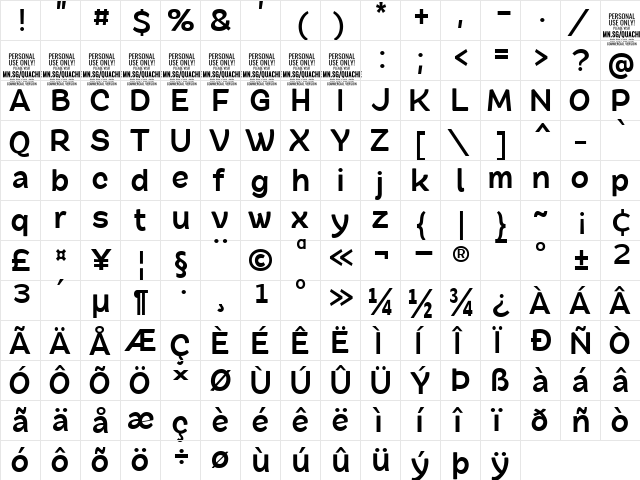
Quache Bold Condensed
Design Context for Quache Typeface
Quache is a composed and adaptable typeface that performs quietly and consistently across a wide range of design contexts. Its bold stroke weight gives it real presence on the page. The condensed width makes it efficient for tight spaces without sacrificing legibility.